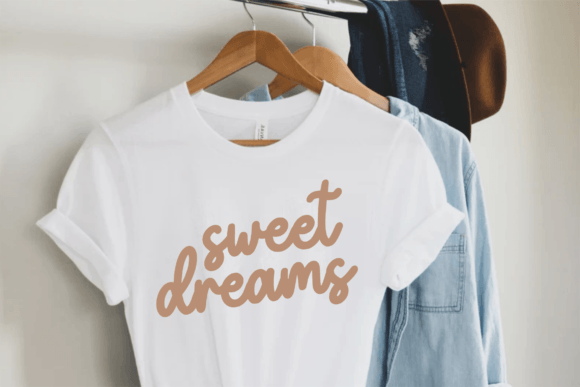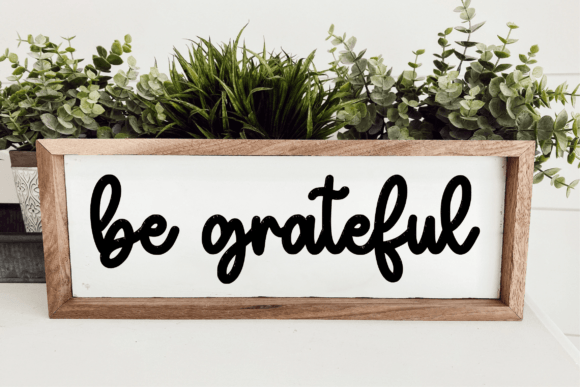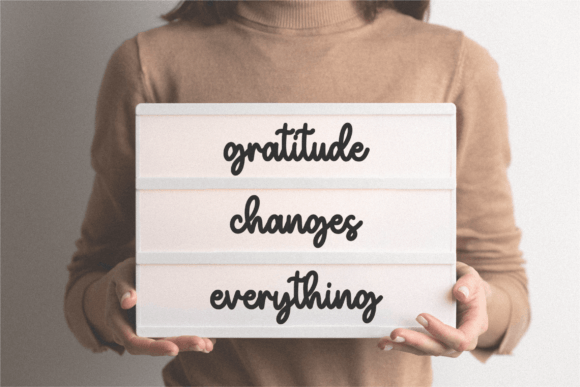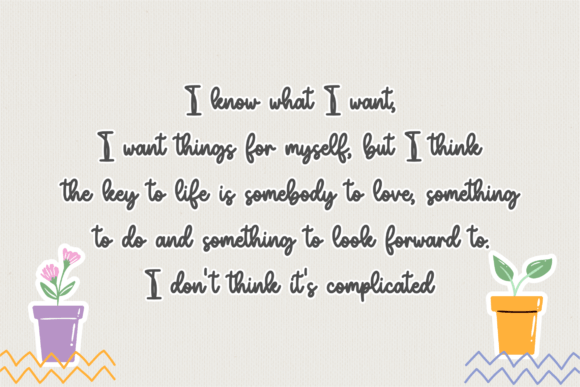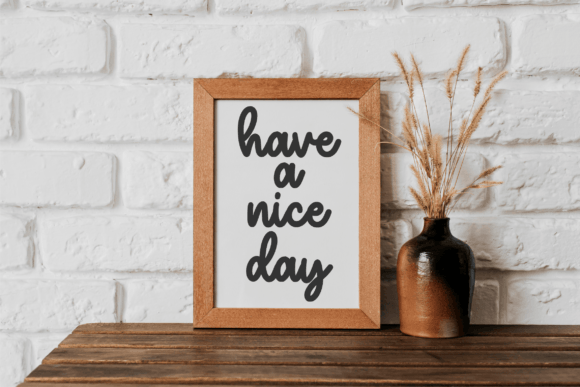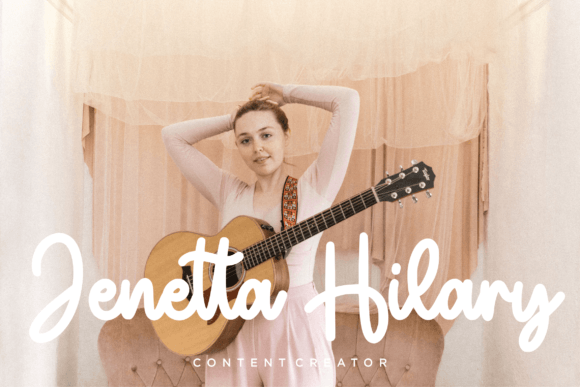
Introduction to Gabydream Font
Gabydream is a monoline bold handwritten font perfect for product packaging, branding project, magazine, social media, weddings, or just used to express words above the background.
Key Features of Gabydream Font